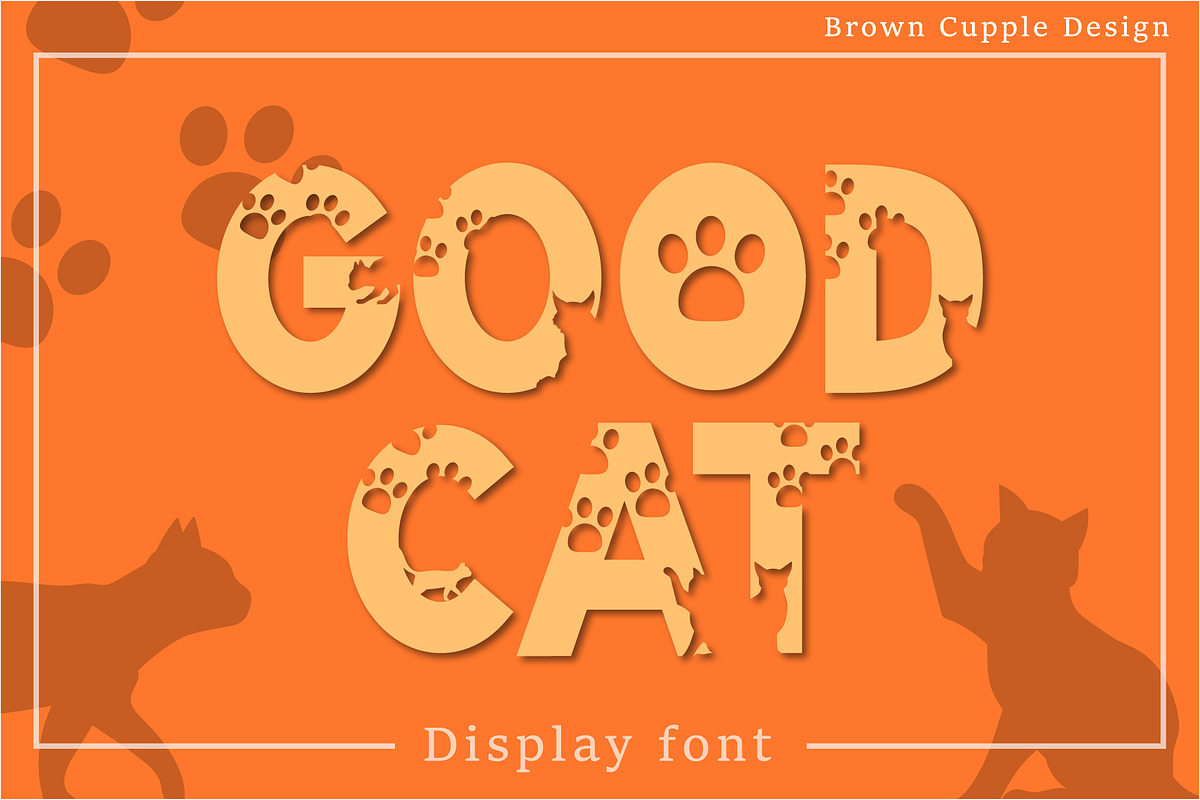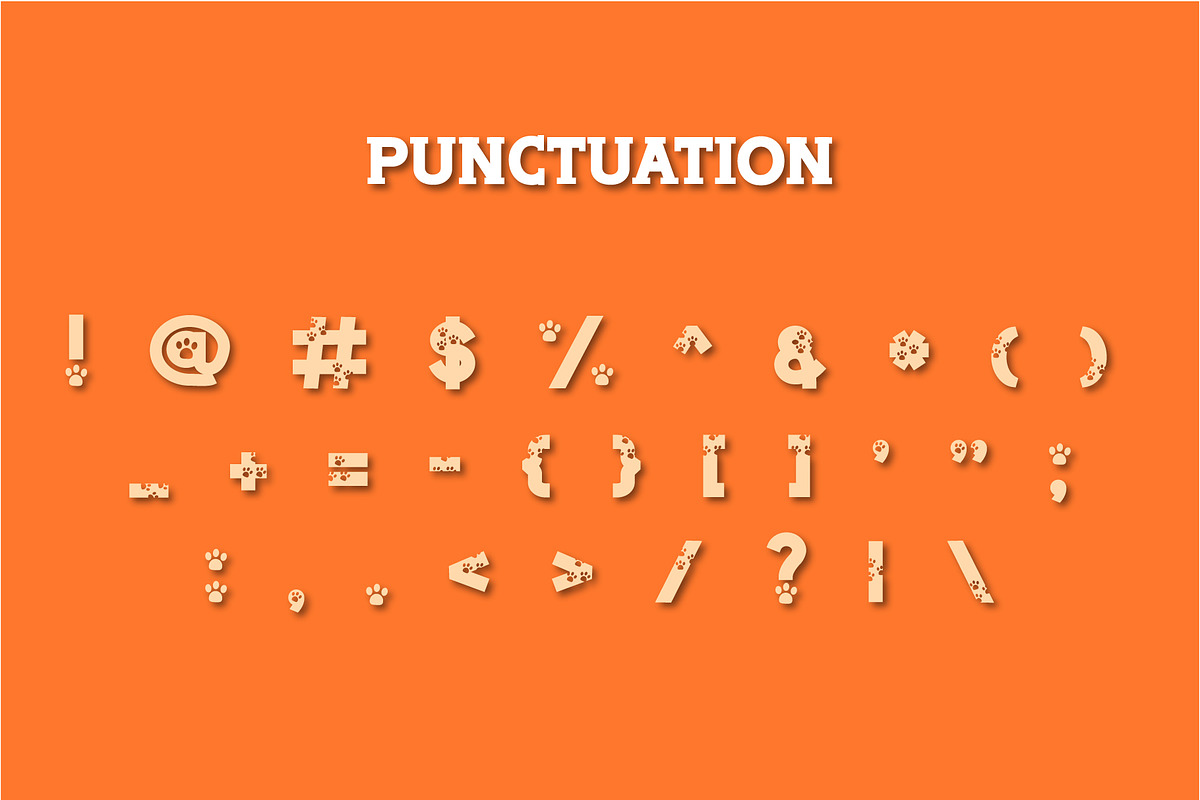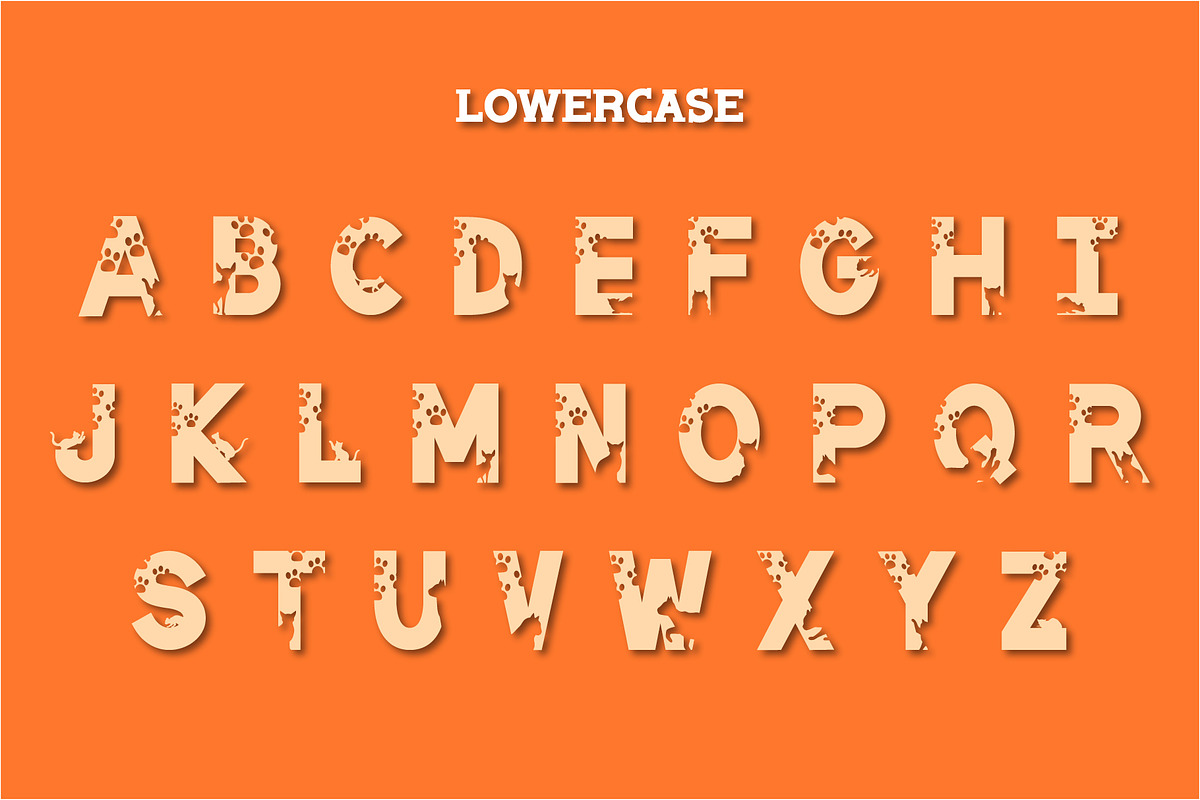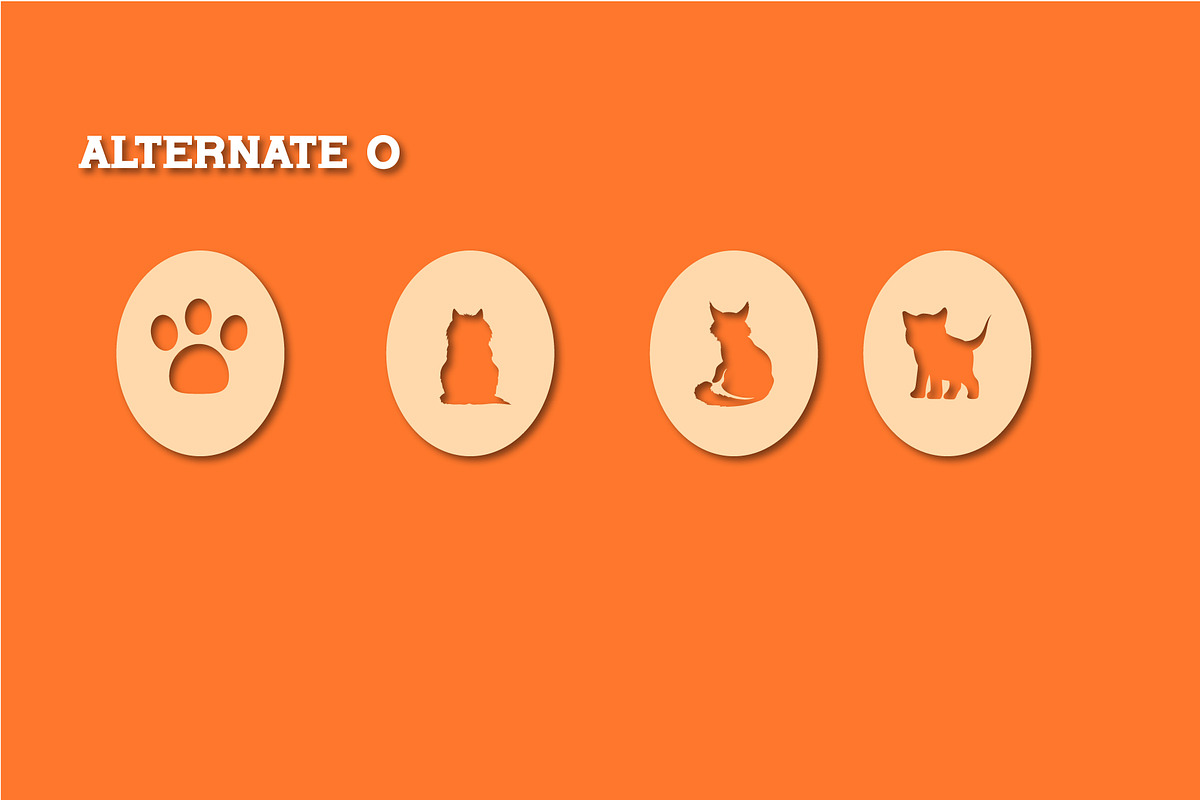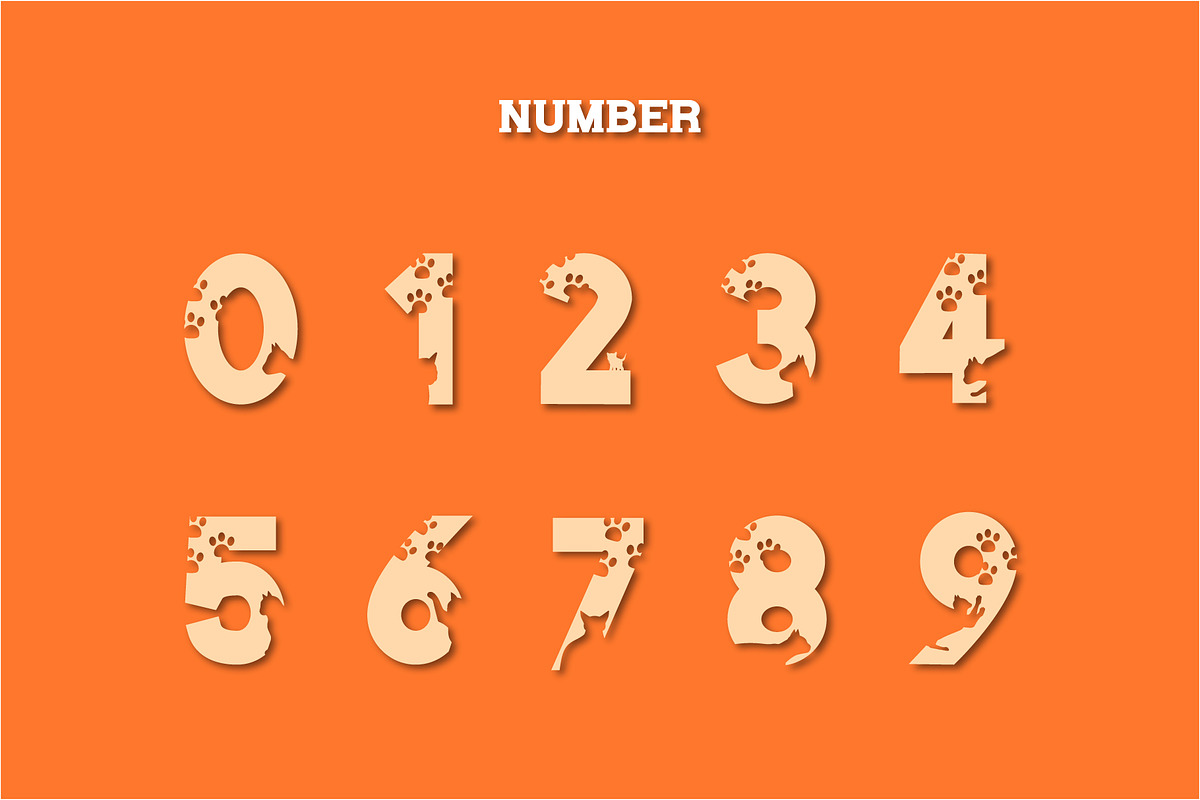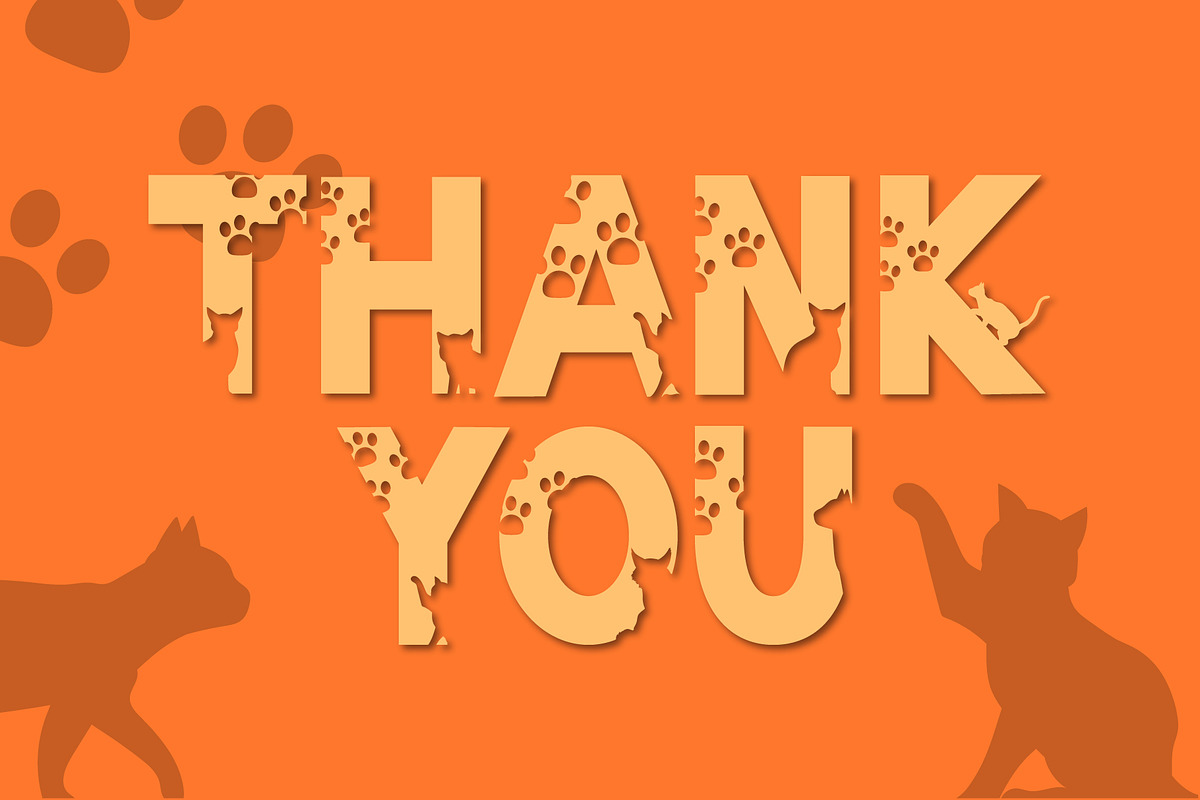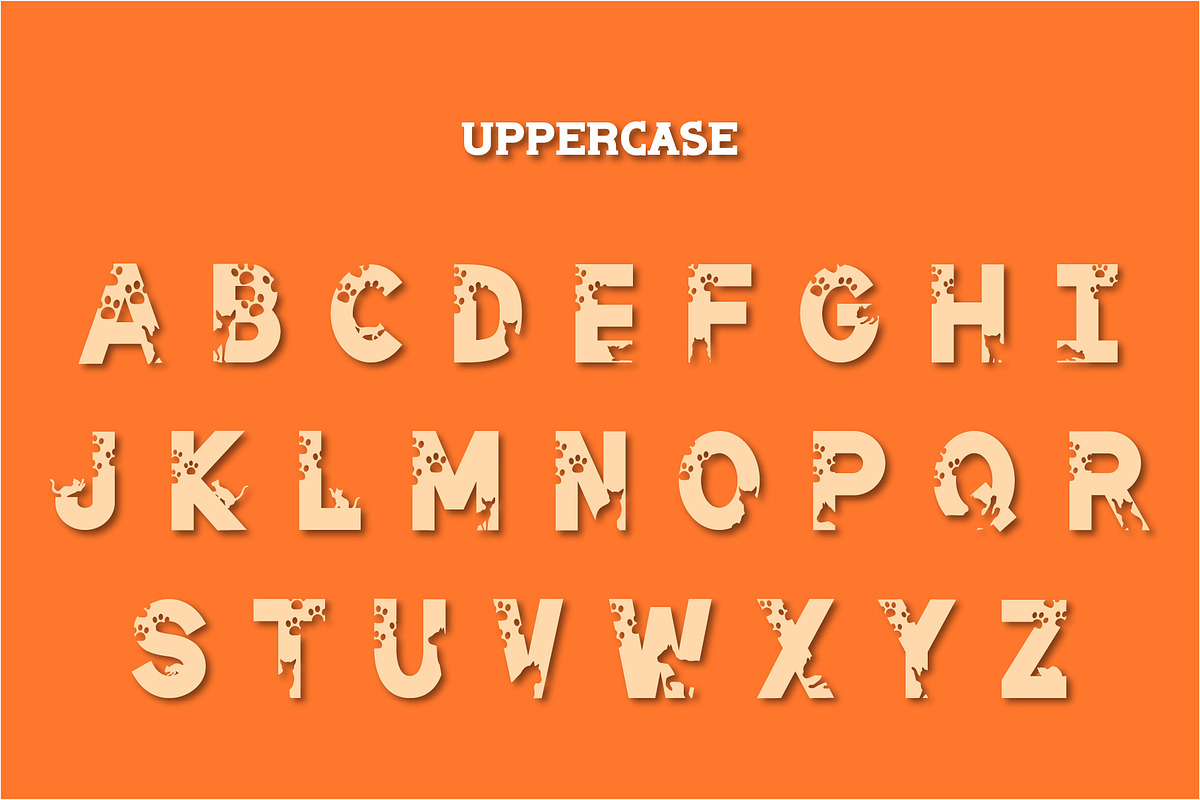
Good Cat - Decorative Font
Good Cat is a cute and fun decorative font. It embodies playfulness and authenticity and is the perfect choice for various projects, such as blog posts, logos, branding, ads, invitations, greeting cards, planners, photo albums, decorations, and much more. Add it to any of your designs, and enjoy the results!